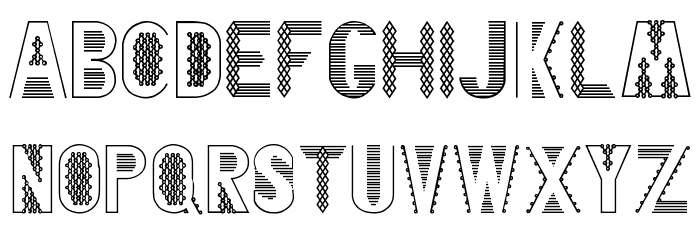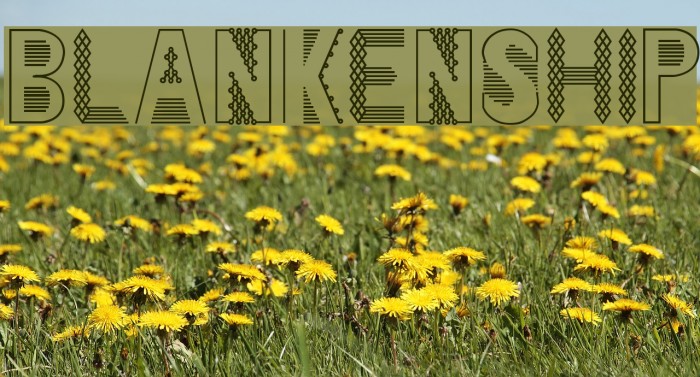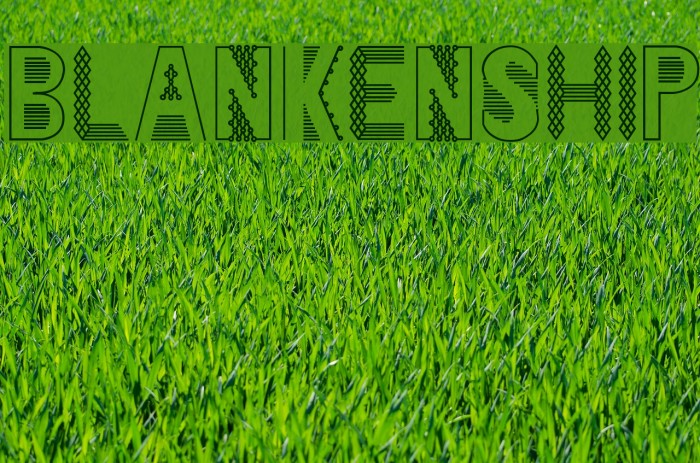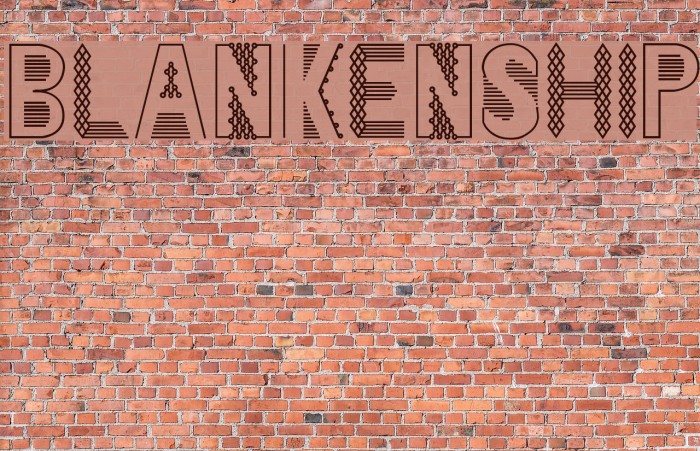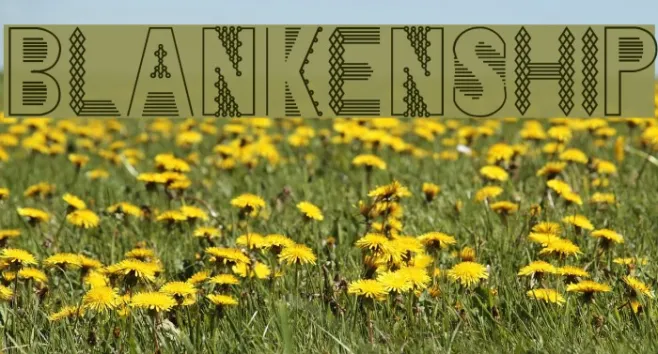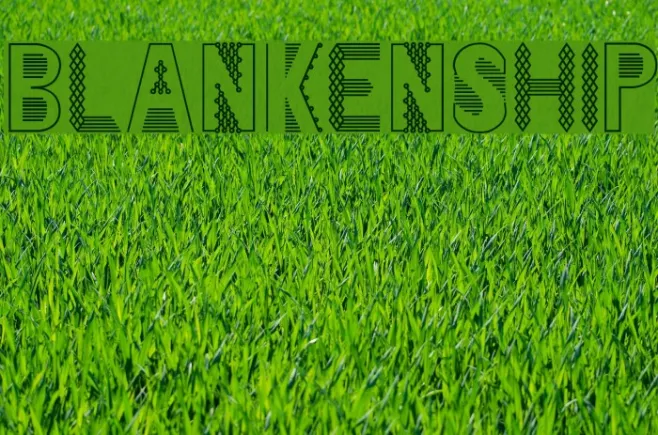
Blankenship Font
This font features a unique and artistic design with each letter incorporating intricate patterns and textures. The uppercase letters are bold and display a variety of line styles, including stripes, dots, and geometric shapes, creating a visually striking effect. The font's playful and decorative nature makes it stand out, offering a creative twist on traditional letterforms. The design is consistent across the alphabet, maintaining a cohesive yet diverse appearance that captures attention.
A decorative font with intricate patterns and bold, artistic letterforms.
- Proposed Projects: Ideal for creative projects such as posters, album covers, and branding materials that require a distinctive and artistic touch.